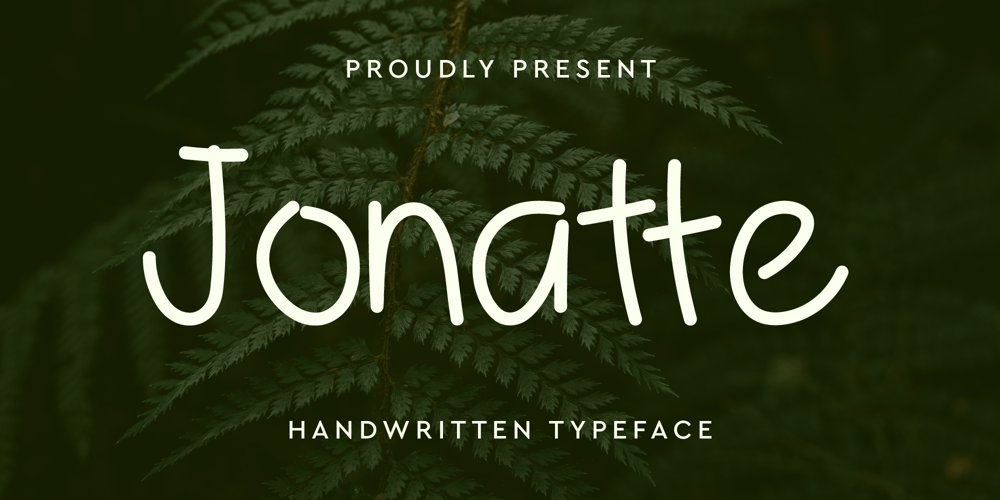
Jonatte Font Family was designed by Iwan Alwan and published by Artiveko. Jonatte contains 2 styles and family package options. Jonatte, a captivating handwriting font crafted by Iwan Alwan.With its charming appeal and intricate details, Jonatte is more than just a typeface; it’s a journey into the art of handwritten expression.Featuring meticulously designed ligatures and alternates, Jonatte offers a seamless flow of characters, adding a touch of authenticity to your projects. Whether you’re designing for handmade businesses, book covers, or business cards, Jonatte brings a unique flair to your creationsIts versatility extends further with comprehensive multilingual support, ensuring that your message resonates globally. From elegant script to playful strokes, Jonatte adapts effortlessly to various design contexts, enhancing the visual impact of your workEmbrace the essence of handwritten charm and elevate your designs with Jonatte—the perfect companion for artisans, authors, and entrepreneurs alike. Unlock the possibilities of personalized expression with Jonatte font.